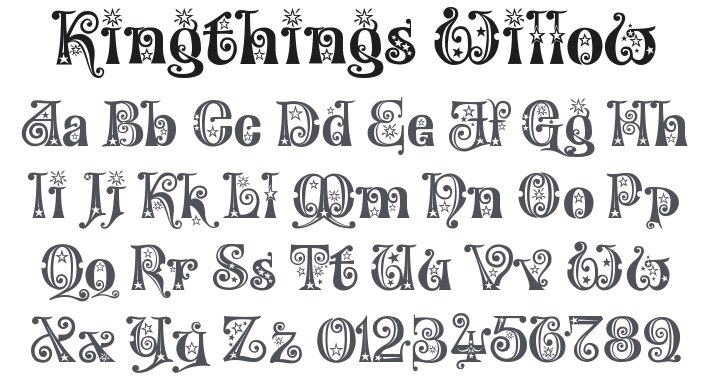
Kingthings Willow Font Family
About Kingthings Willow
I made a font for Xander and one for Spike, Buffy has her own (available on the web and called Buffied), So I thought it was time I made one for the Character Willow. If all this means nothing to you, I am a Buffy the vampire slayer fan... 'Nuff said I think. These fonts are both the same - with embellishments in Willow, making it possible to use both the fonts without complete madness setting in. They were originally designed to look like a sheaf of willow wands - it was all a bit too much so I formalised them to these simpler forms